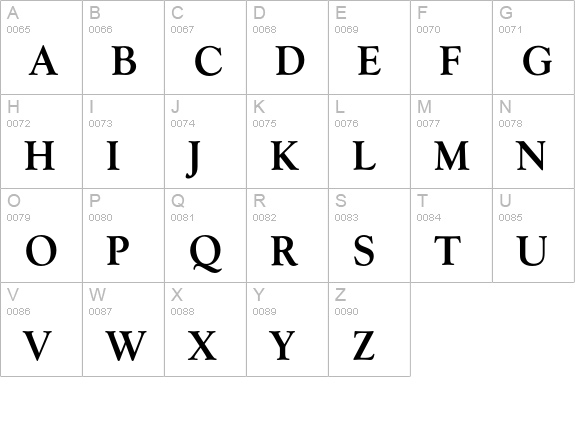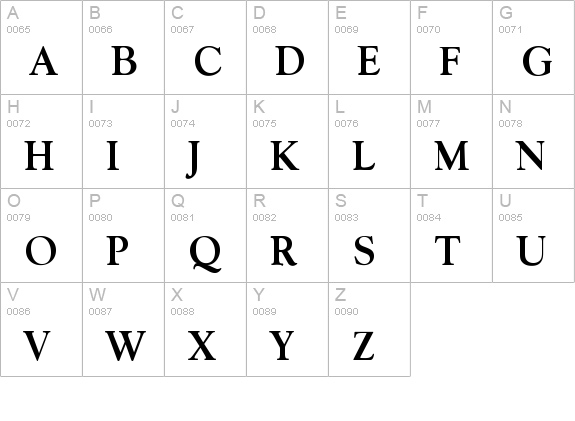
Goudx-DemiBold is a sub-bold, structured variant in the Goudx typeface family \xE2\x80\x94 well suited to sub-headlines and emphasised passages.
Introducing Goudx-DemiBold font, a striking typeface that exudes sophistication and modernity. With its bold and dynamic design, Goudx-DemiBold is perfect for making a statement in your projects. This versatile font is ideal for headlines, logos, branding, and more. What's even better is that Goudx-DemiBold is available for free download at FontsMarket.com. Take advantage of this opportunity to add a touch of elegance to your designs without breaking the bank. Don't miss out on this stylish and impactful font that will elevate your creative projects to the next level. Download Goudx-DemiBold today and let your creativity shine!